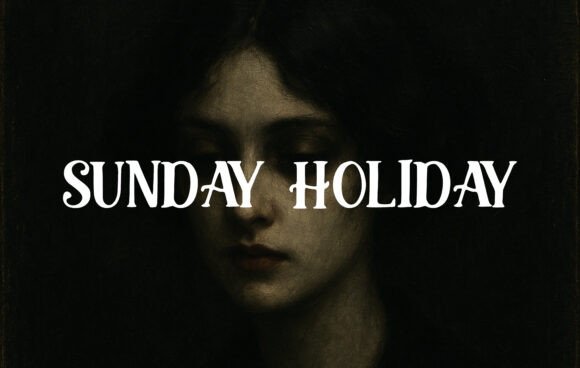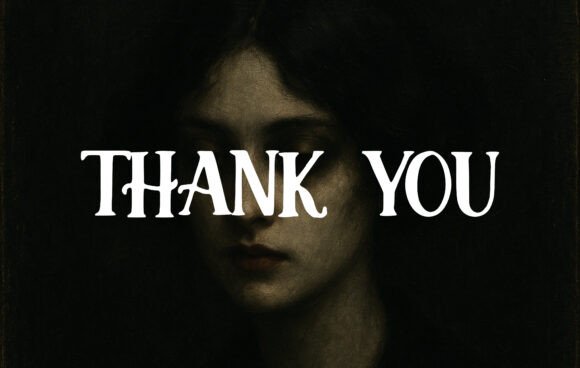
Introducing Canvas Font: Elevate Your Designs with Timeless Elegance and Modern Boldness
In the world of typography, few fonts manage to strike a balance between vintage sophistication and modern boldness. However, the Canvas Font is an exception, offering a stunning decorative serif display font that commands attention while exuding timeless elegance. With its high-contrast strokes, gracefully flared serifs, and artistic curves, this font is perfect for designers and crafters looking to add a touch of luxury to their projects.
Key Features of Canvas Font
- High-Contrast Strokes: The Canvas Font boasts high-contrast strokes that add depth and dimension to your designs. This feature is particularly useful for creating visually striking headlines, titles, and captions.
- Gracefully Flared Serifs: The serifs of the Canvas Font are designed to be gracefully flared, adding a touch of sophistication and elegance to your designs. These serifs are perfect for creating a refined and classic look.
- Artistic Curves: The Canvas Font features artistic curves that add a touch of creativity and flair to your designs. These curves are carefully crafted to create a sense of movement and fluidity.
- Distinctive Shapes: The font’s distinctive shapes and expressive letterforms make it ideal for logos, book covers, posters, packaging, and editorial layouts. The Canvas Font is perfect for designers looking to create unique and memorable designs.
The Canvas Font is versatile and can be used for a wide range of design applications. Whether you’re working on a classic or contemporary design, this font is sure to impress. Here are some of the design applications where the Canvas Font excels:
- Logos: The Canvas Font is perfect for creating logos that require a touch of elegance and sophistication. Its distinctive shapes and expressive letterforms make it ideal for branding and identity design.
- Book Covers: The font’s classic and refined look makes it perfect for book covers. Whether you’re working on a romance novel or a non-fiction book, the Canvas Font is sure to add a touch of sophistication.
- Posters: The Canvas Font is perfect for creating visually striking posters that command attention. Its high-contrast strokes and artistic curves make it ideal for headlines and titles.
- Packaging: The font’s elegant and refined look makes it perfect for packaging design. Whether you’re working on a luxury brand or a high-end product, the Canvas Font is sure to impress.
- Editorial Layouts: The Canvas Font is perfect for editorial layouts that require a touch of sophistication and elegance. Its classic look makes it ideal for magazines, newspapers, and other publications.
Why Choose the Canvas Font?
There are many reasons why designers and crafters should choose the Canvas Font for their projects. Here are a few:
- Timeless Elegance: The Canvas Font exudes timeless elegance and sophistication, making it perfect for designers looking to create classic and refined designs.
- Modern Boldness: The font’s high-contrast strokes and artistic curves add a touch of modern boldness to your designs, making it perfect for designers looking to create visually striking projects.
- Versatility: The Canvas Font is versatile and can be used for a wide range of design applications, making it a great addition to any designer’s toolkit.
- Luxurious Appeal: The font’s elegant and refined look makes it perfect for designers looking to add a touch of luxury to their projects.
In conclusion, the Canvas Font is a stunning decorative serif display font that offers a perfect blend of vintage elegance and modern boldness. Its high-contrast strokes, gracefully flared serifs, and artistic curves make it ideal for designers and crafters looking to add a touch of sophistication and elegance to their projects. With its versatility and luxurious appeal, the Canvas Font is sure to become a favorite among designers and crafters.
Whether you’re working on a classic or contemporary design, the Canvas Font is perfect for logos, book covers, posters, packaging, and editorial layouts. So why wait? Download the Canvas Font today and elevate your designs with timeless elegance and modern boldness.